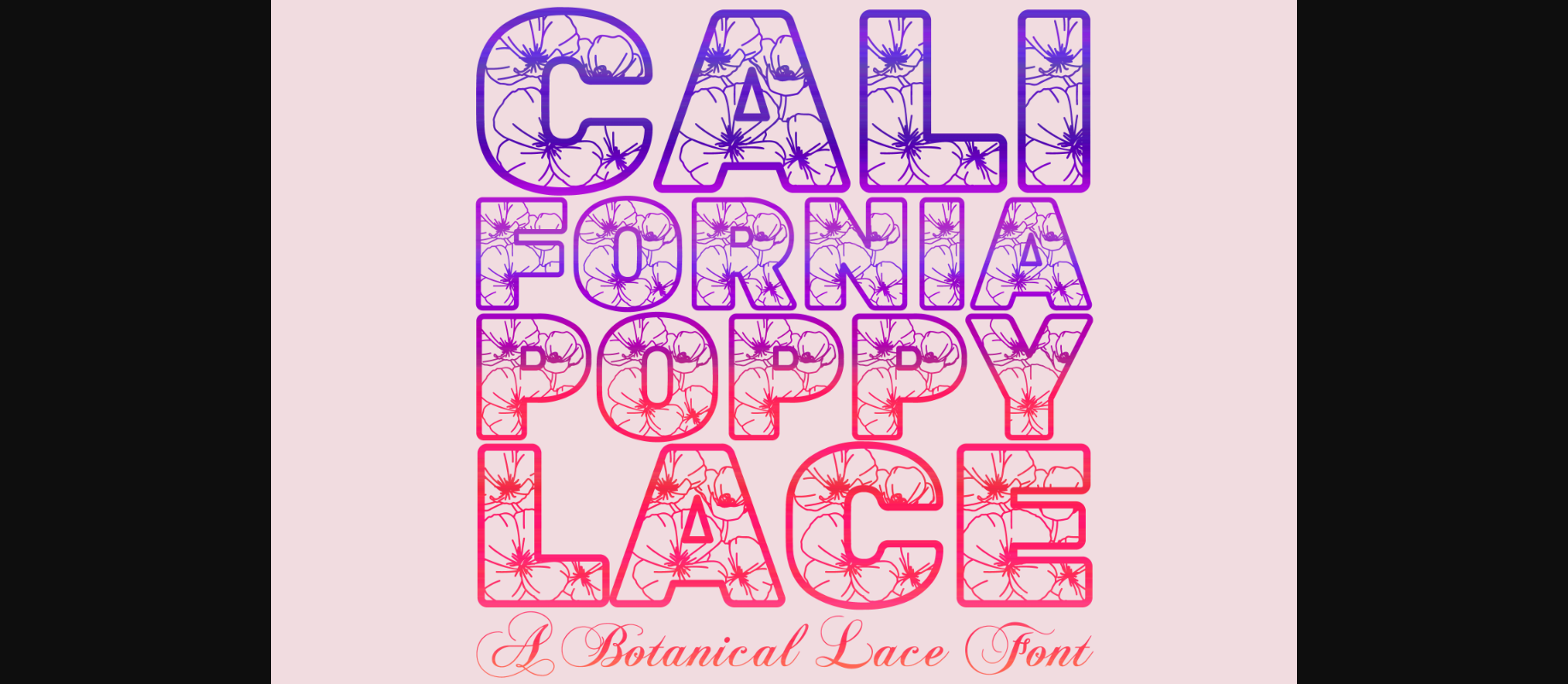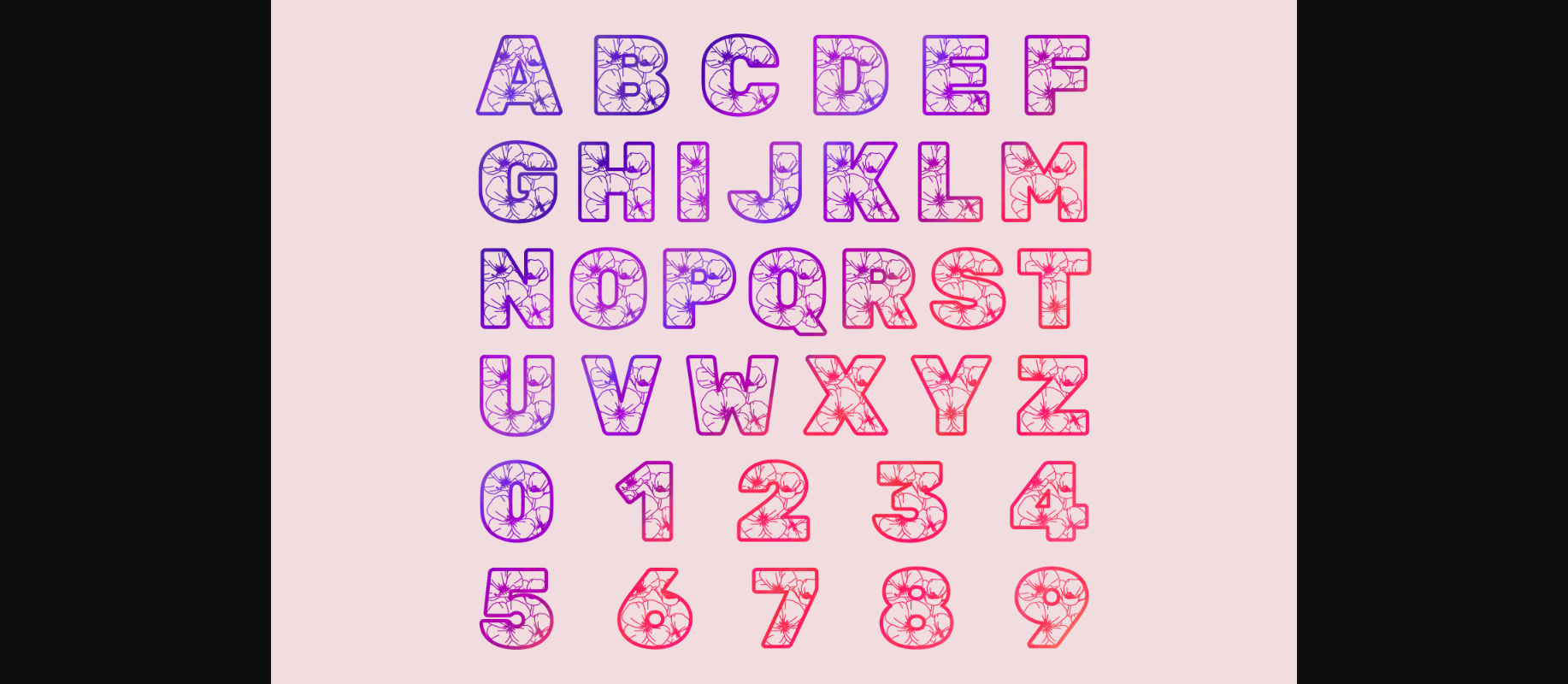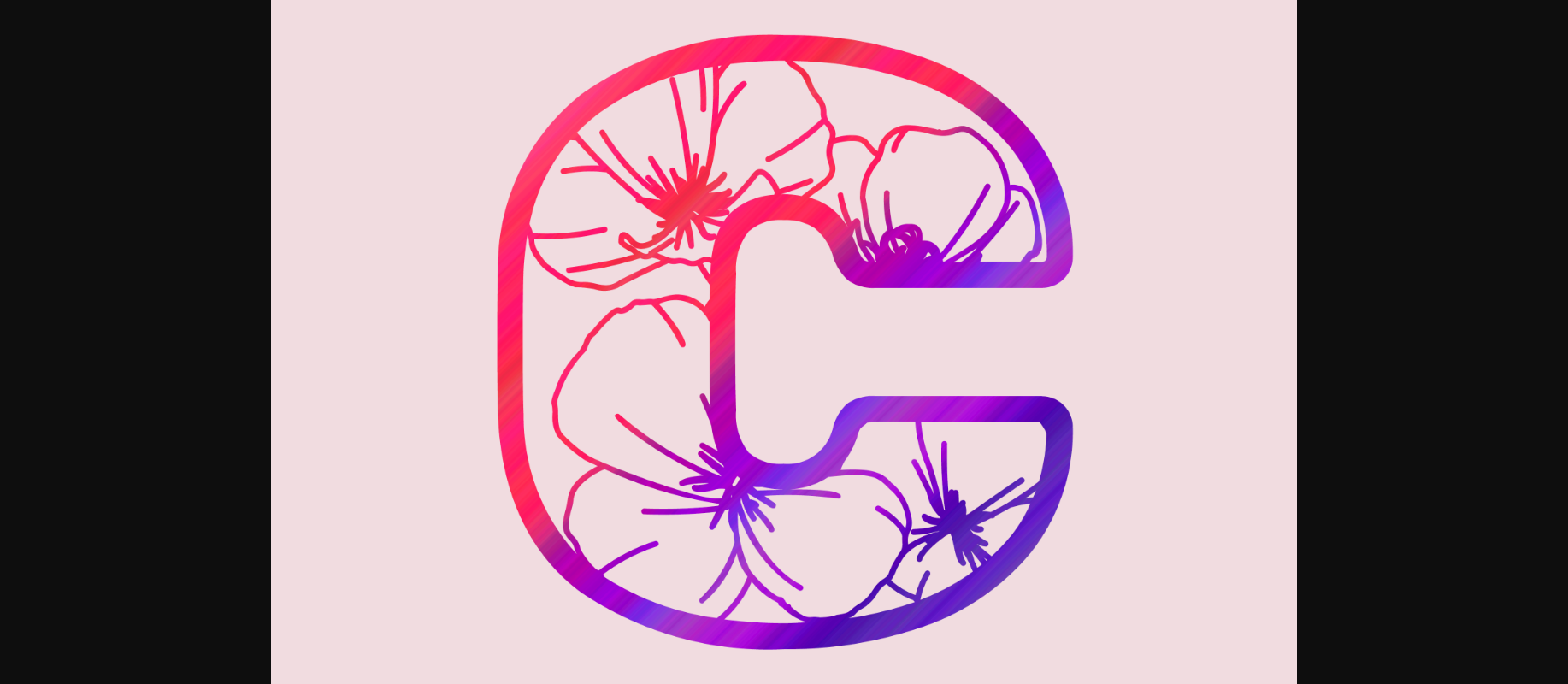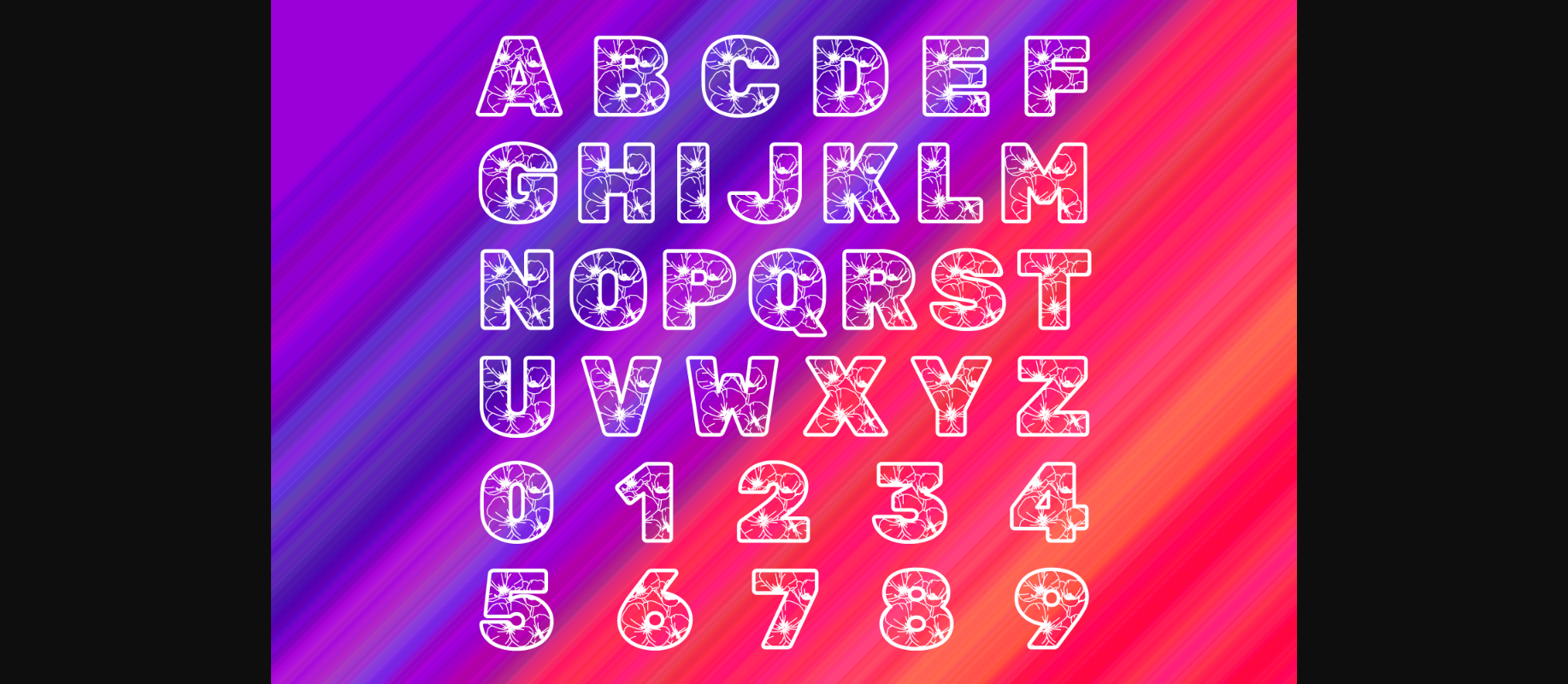
California Poppy Lace Font
About California Poppy Lace Font
California Poppy Lace is an elegant, botanical, lace-like decorative font. This font is ideal for adding special decoration to your crafts. Whether you use it for custom designs, DIY crafts, or just any creation that requires a lovely touch, this font will be an amazing choice!